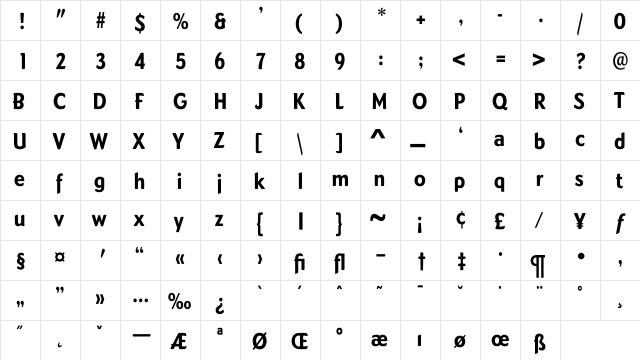
DundeeExBoldCond Regular
Design Context for DundeeExBoldCond Typeface
DundeeExBoldCond is a composed and adaptable typeface that performs quietly and consistently across a wide range of design contexts. The heavy weight commands attention and anchors typographic hierarchies. Its narrow stance lets it pack a punch even in space-constrained designs.